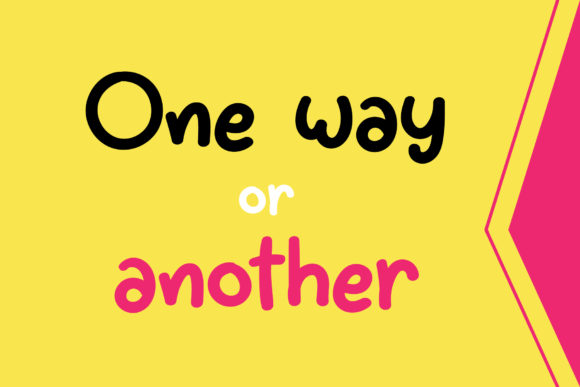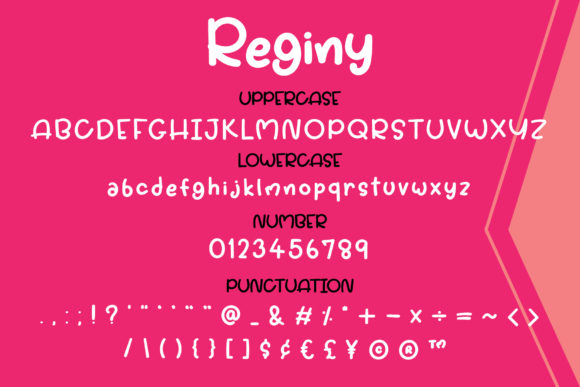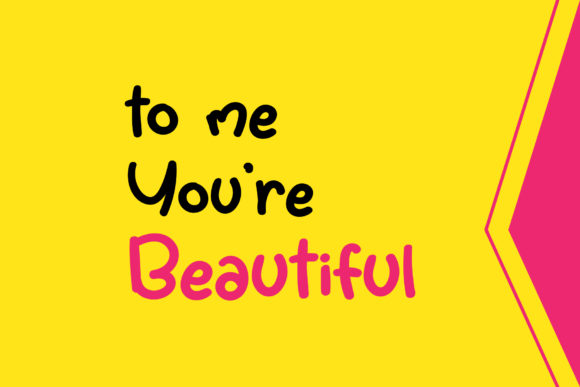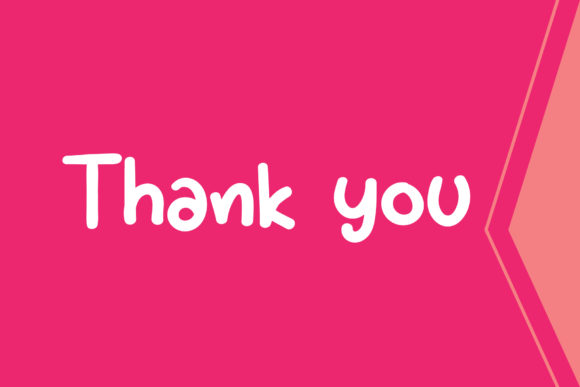
Reginy Font
About Reginy Font
Reginy is a gorgeous handwritten font, with a very friendly style. Use this lovely and unique font to bring any DIY project to life!